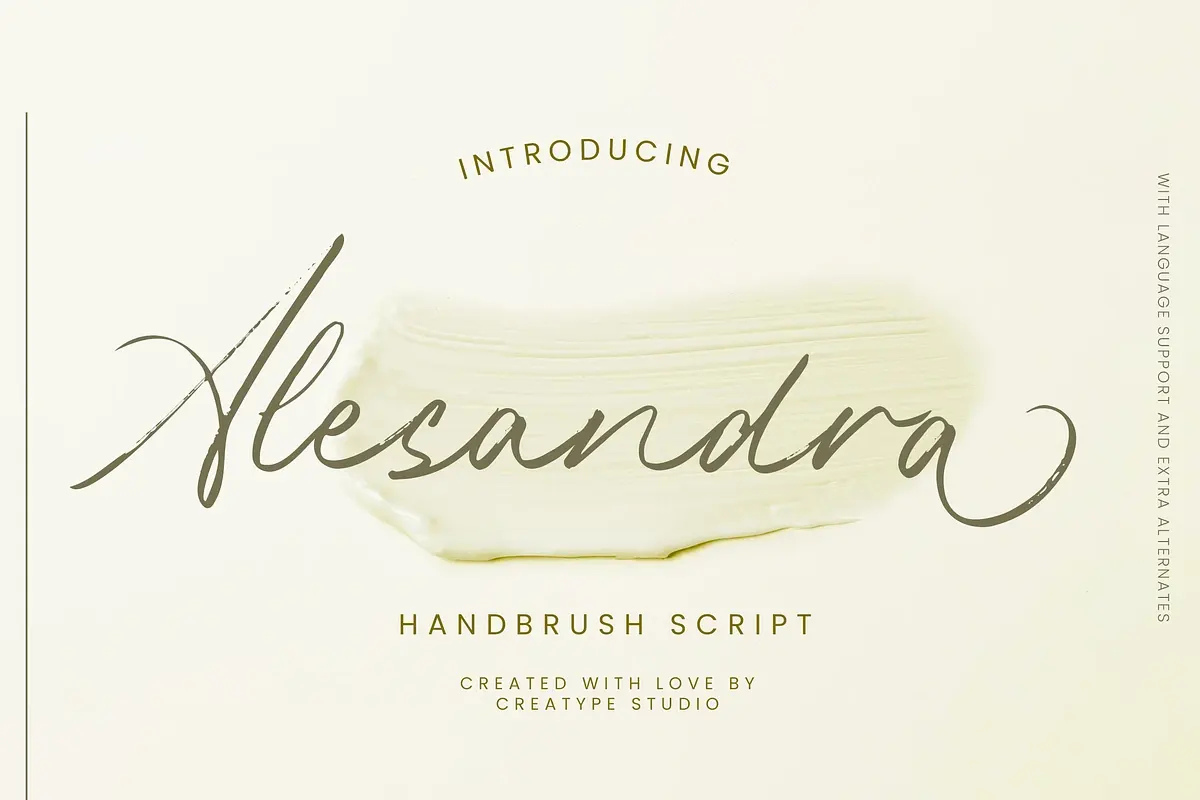
Alesandra Font Free Download is a beautiful handbrush script font that combines artistic flair with modern elegance. Featuring fluid strokes, textured brush details, and a natural handwritten flow, Alesandra is perfect for wedding invitations, branding, logos, social media posts, and any design that calls for a romantic and expressive touch.
Designed to emulate authentic brush lettering, Alesandra Font Free Download brings a bold yet graceful character to your creative projects. Its dynamic movement and handcrafted look make it ideal for standout headlines, personalized stationery, or product packaging that needs a soft, human feel.
Alesandra pairs beautifully with minimalist sans-serifs or elegant serif fonts, offering balance and versatility in your typography combinations. Whether you're crafting a dreamy mood board or a stylish brand identity, this font adds warmth, charm, and a touch of sophistication.